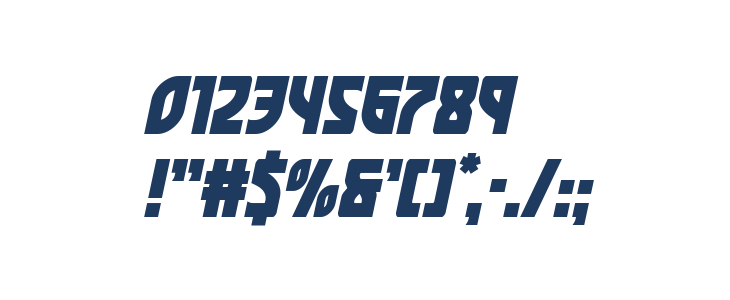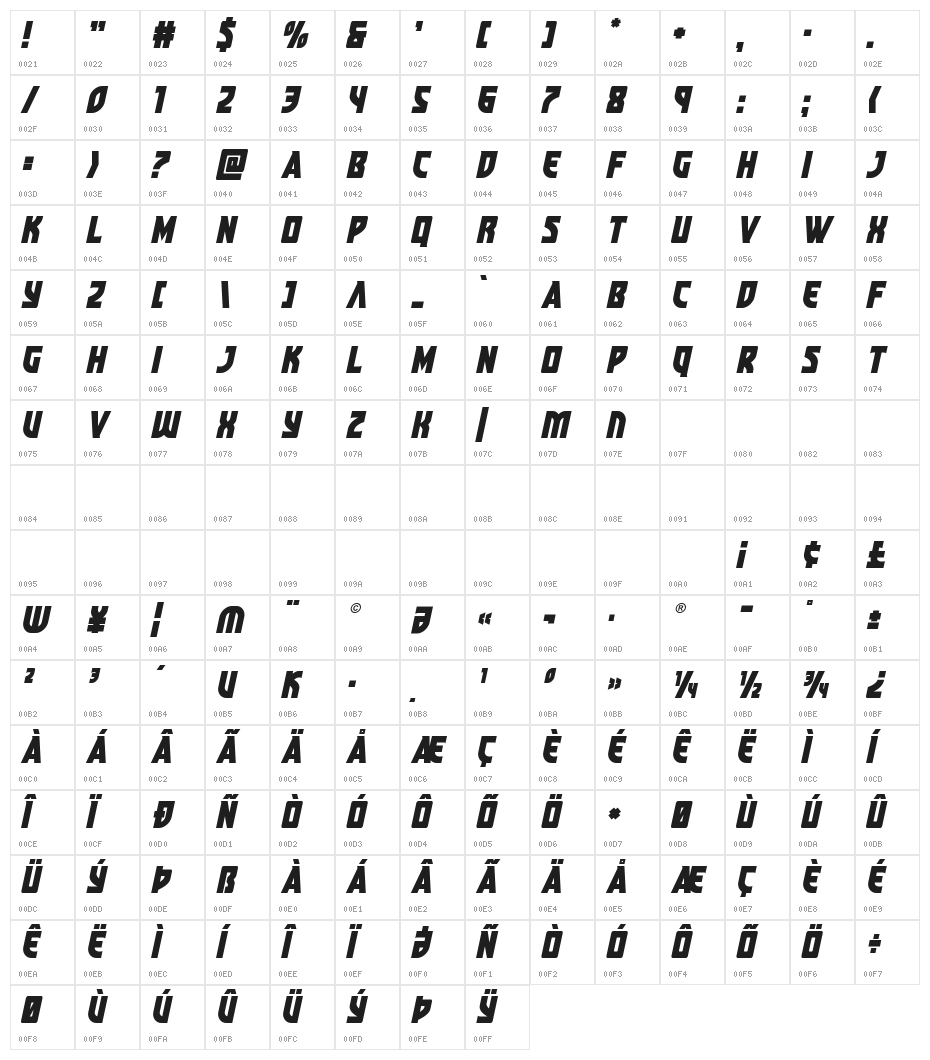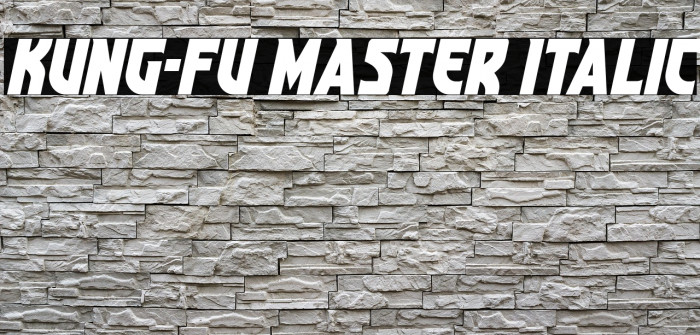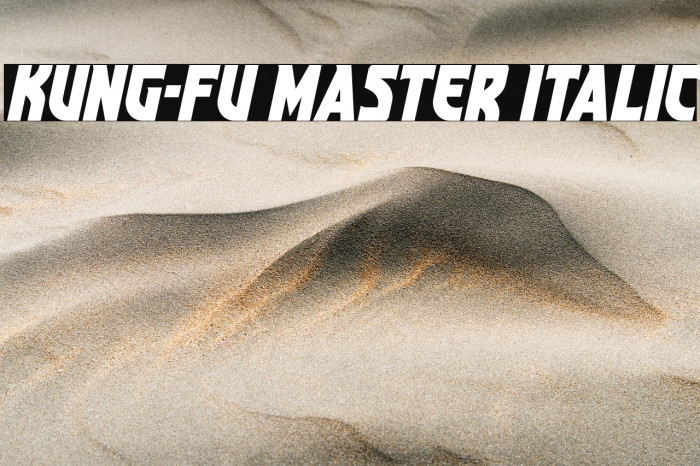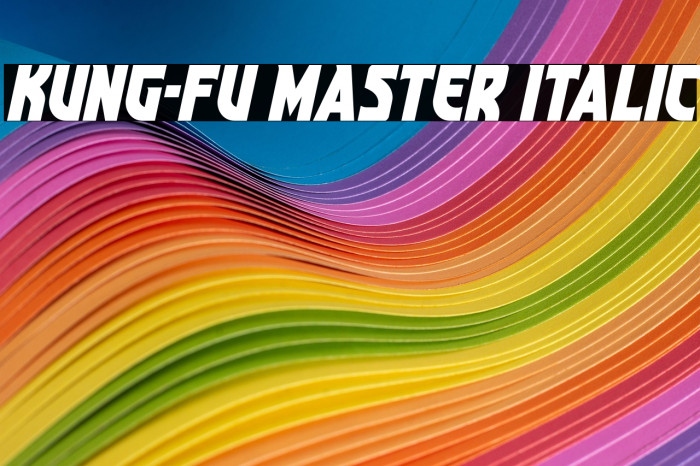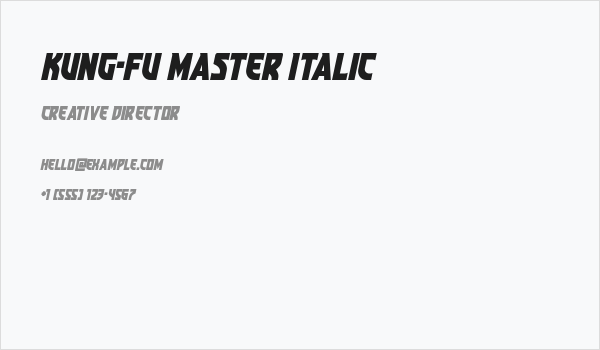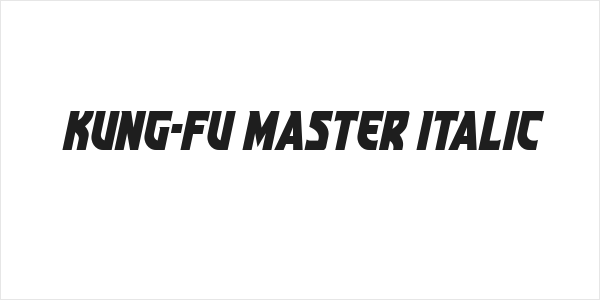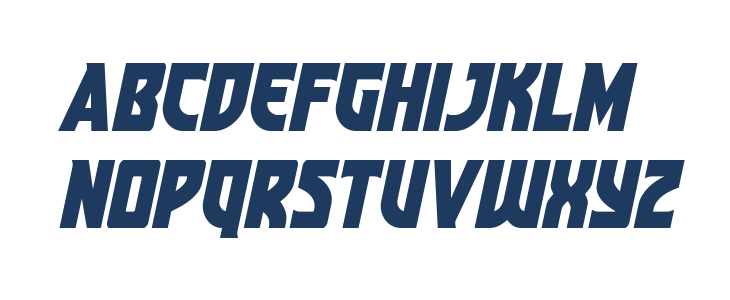
Kung-Fu Master Italic Font
Kung-Fu Master Italic Description
This font exudes a bold and dynamic presence, characterized by its italicized and angular letterforms. The sharp edges and slanted orientation give it a sense of movement and energy, reminiscent of martial arts aesthetics. The uppercase and lowercase letters maintain a consistent style, with a strong emphasis on geometric shapes and clean lines. The numerals and special characters follow the same design principles, ensuring uniformity across all glyphs. This font is ideal for projects that require a striking and assertive visual impact.
| Proposed Projects | Perfect for action-themed posters, video game titles, sports branding, and dynamic logo designs. |